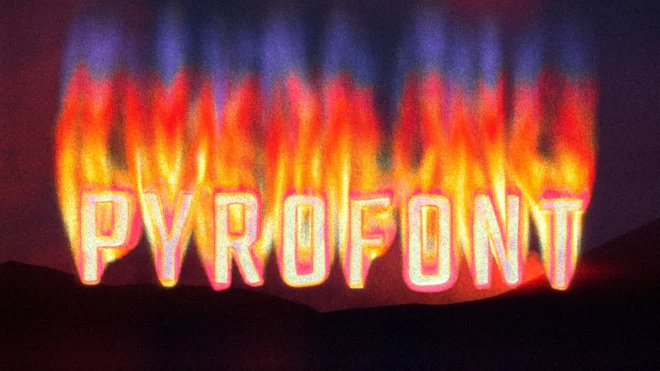
This motion graphics pack consists of 54 clips of dynamic heat map letters, numbers, and symbols burning in pixelated retro-styled fire flames on a transparent alpha channel in a seamless loop.